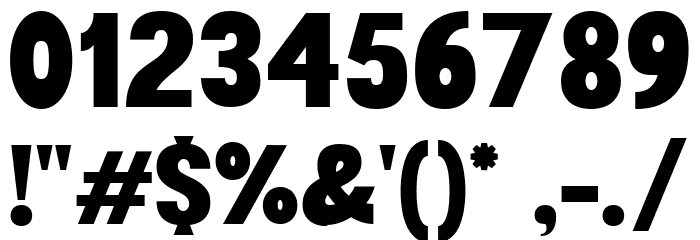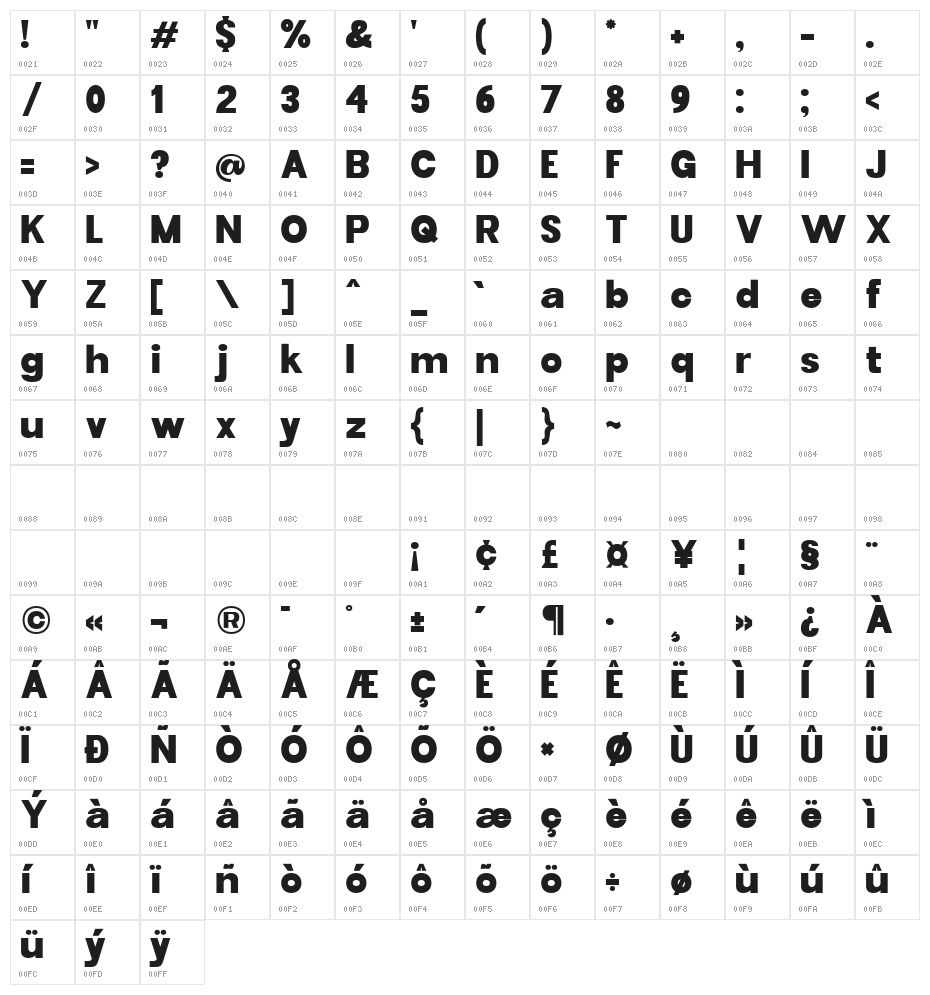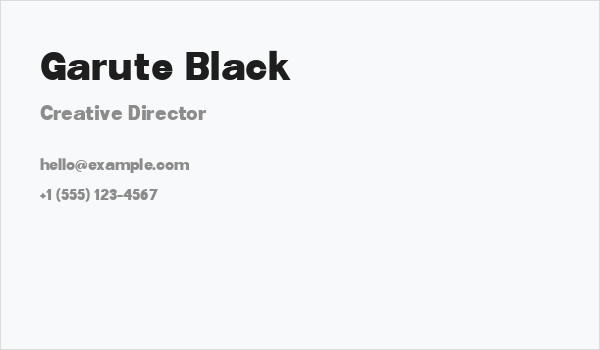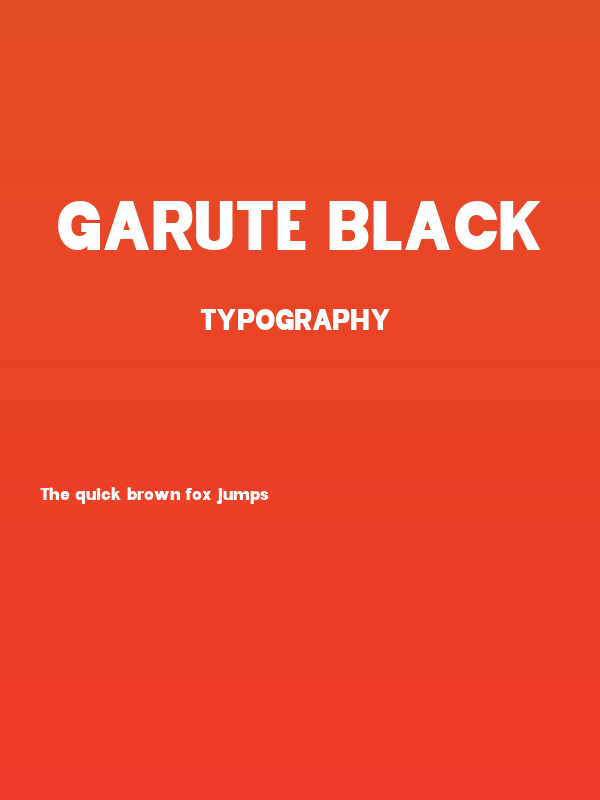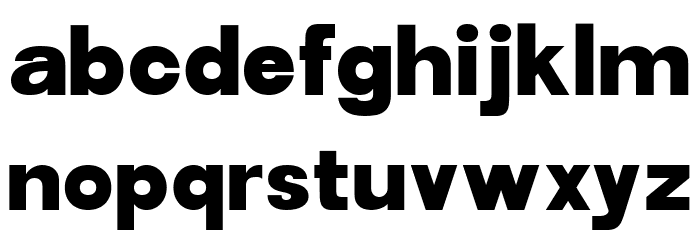
Garute Black Font
Garute Black Description
This font exhibits a bold and commanding presence with its thick, uniform strokes and clean lines. It features a sans-serif style, characterized by the absence of serifs, which gives it a modern and straightforward appearance. The uppercase and lowercase letters maintain a consistent weight, contributing to a cohesive and balanced look. The numerals are equally bold, ensuring readability and impact. Special characters are designed with the same robust style, making them stand out effectively. Overall, the font's strong and confident design makes it suitable for attention-grabbing applications.
| Proposed Projects | Ideal for headlines, posters, branding, and advertising where a strong visual impact is desired. |